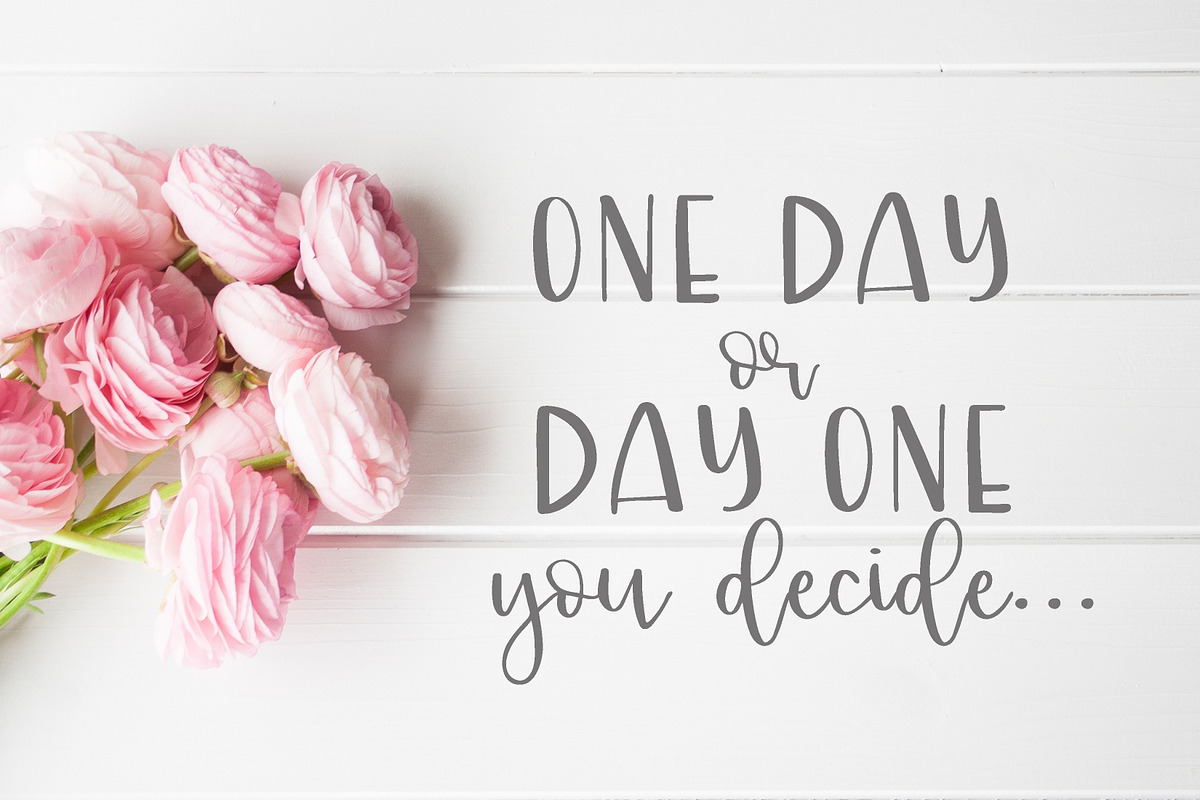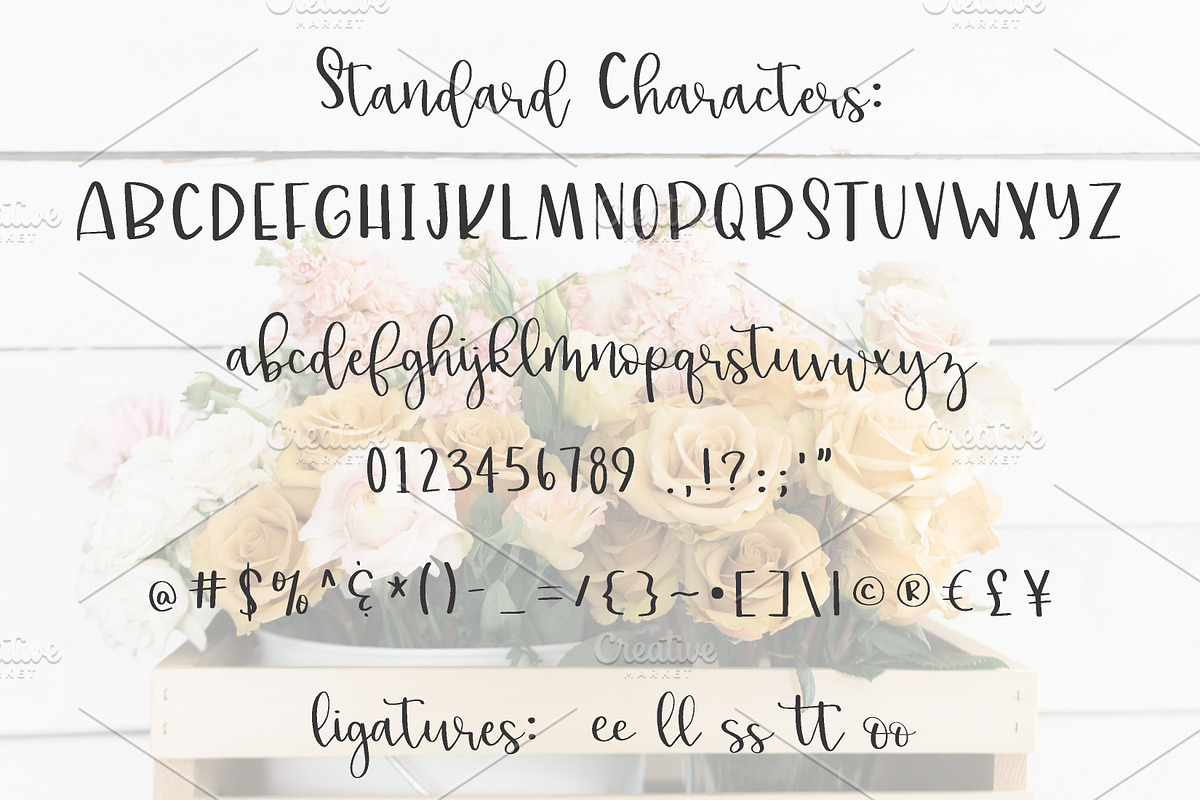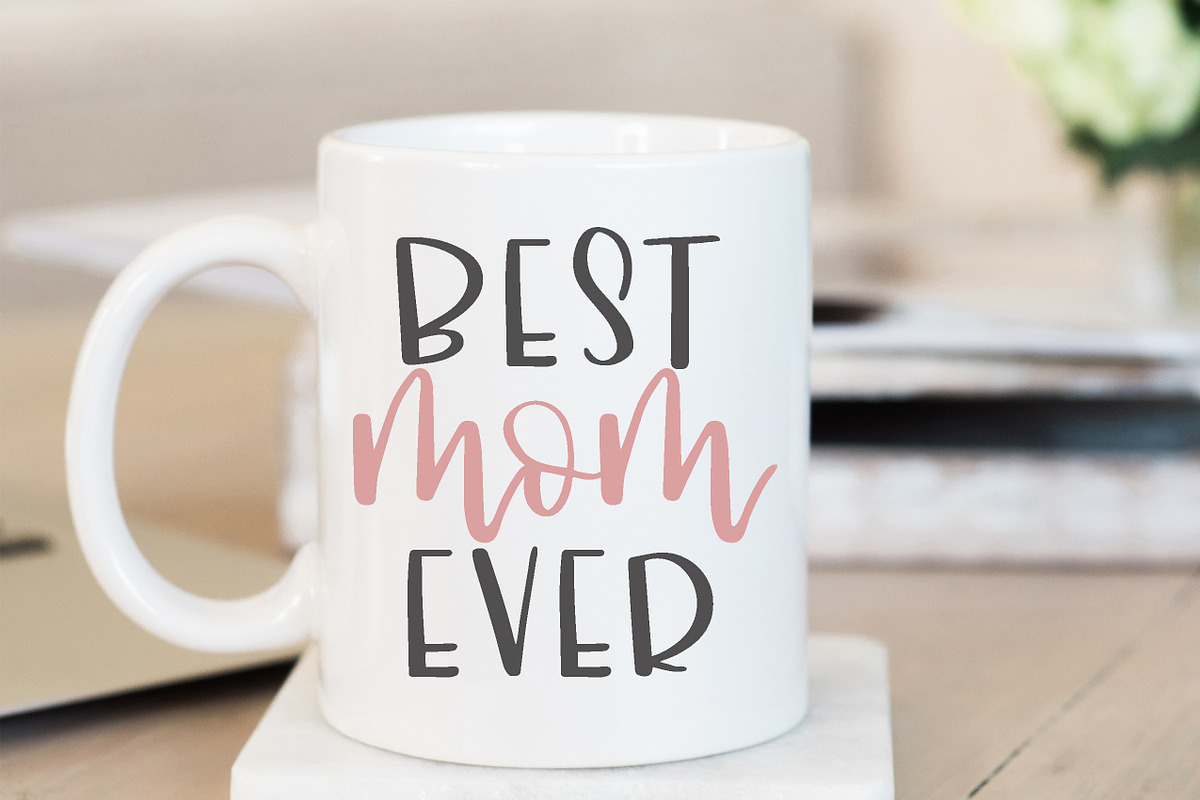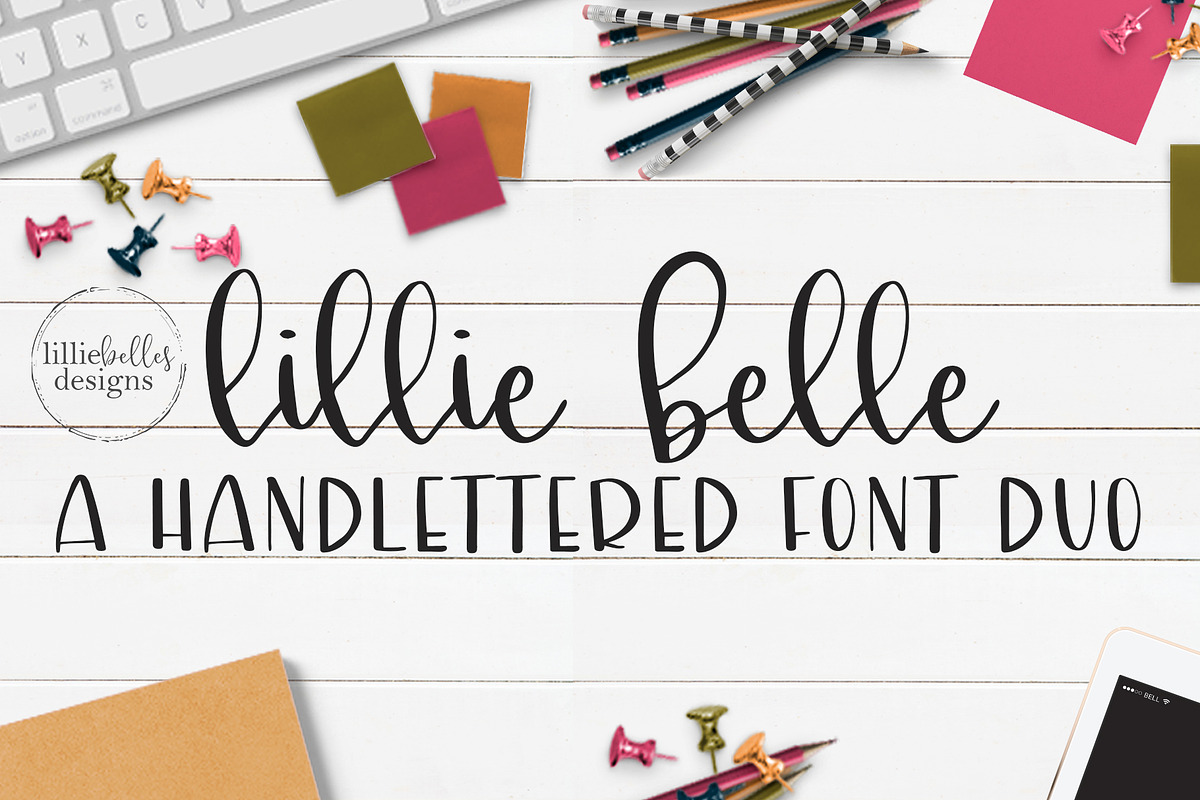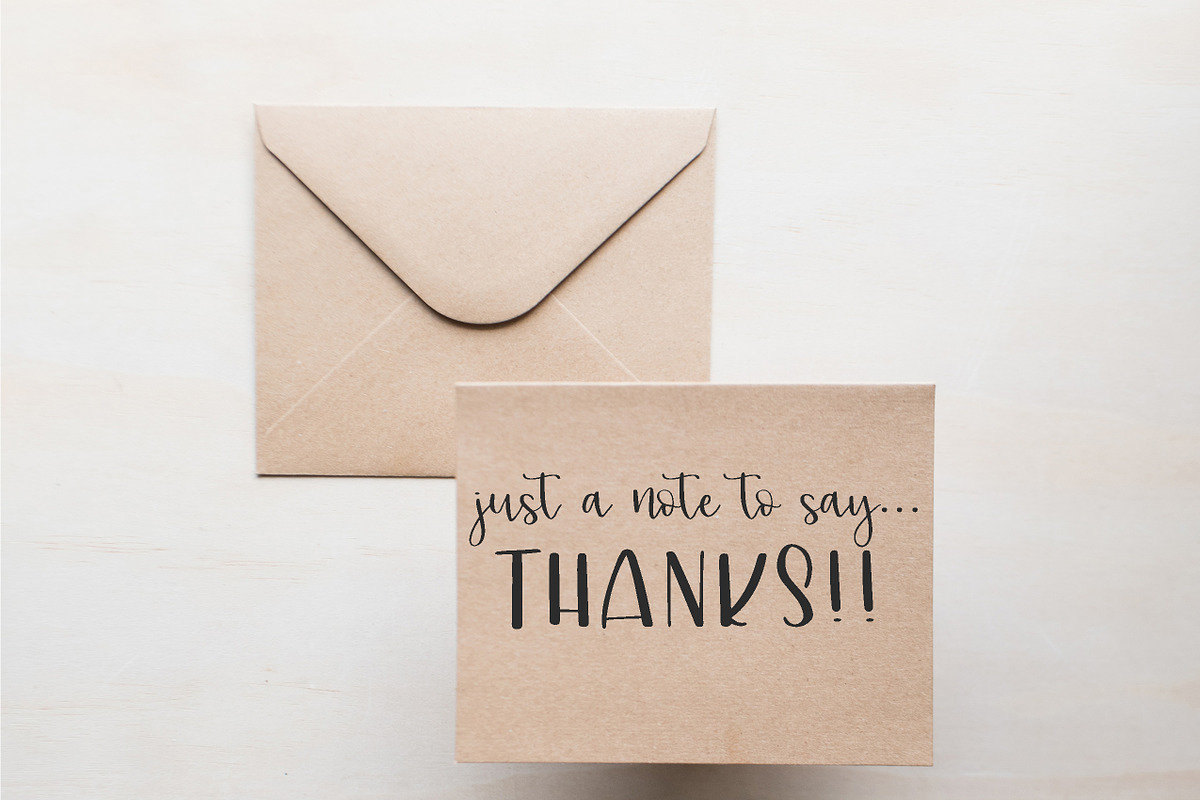
lillie belle hand lettered font
Introducing lillie belle! A handlettered font duo with a fun print uppercase and bouncy lowercase. See the last pic for characters, ligatures and alternates included in the font.
- A handlettered font duo with a fun print uppercase and bouncy lowercase.
lillie belle hand lettered font by lillie belles designs fits naturally into Branding, posters, packaging, typography.